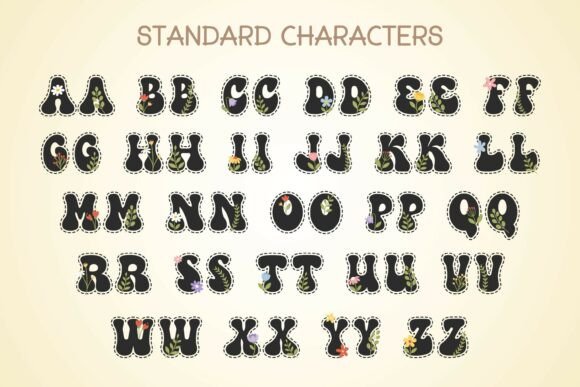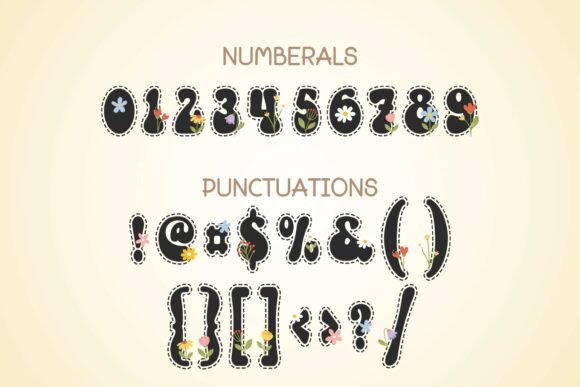
Introduction to Groovy Spring Font
Embrace the flower-power aesthetic with Groovy Spring, a vibrant color font designed to bring joy and nostalgia to your creative projects.
This decorative typeface features bubbly, 70s-inspired letterforms set against a dashed โpatchโ outline, beautifully adorned with delicate wildflower illustrations that bloom directly from the characters Its thick, playful silhouette and integrated floral elements make it an exceptional choice for seasonal event branding, whimsical childrenโs apparel, nursery decor, and garden-themed social media graphics.
Key Features of Groovy Spring Font